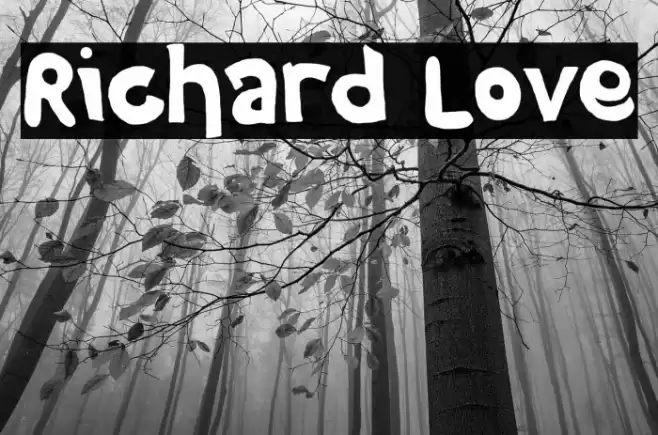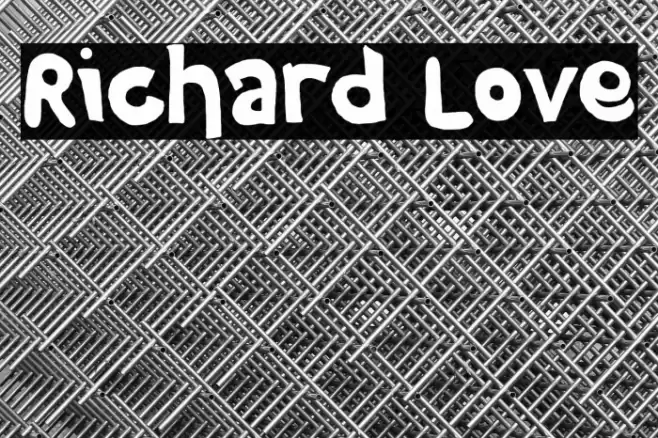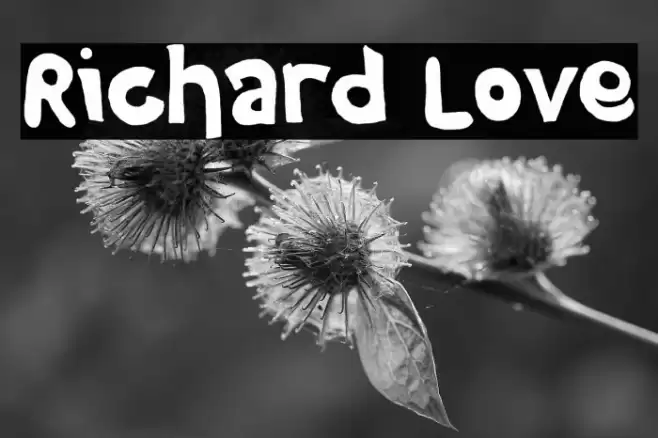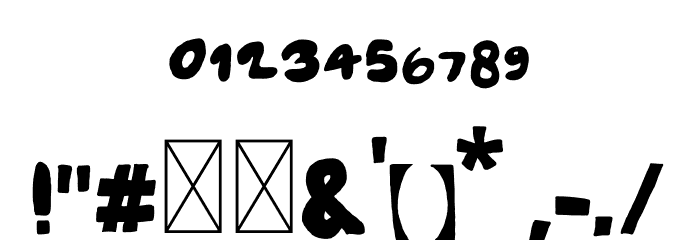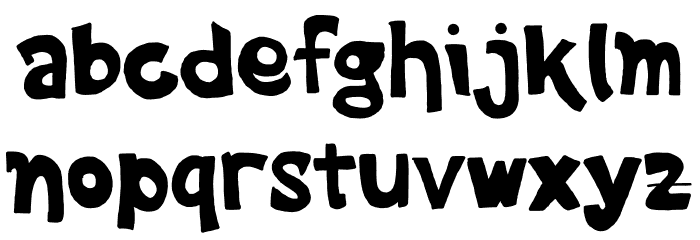
Richard Love Font
Richard Love Description
This playful and bold font features thick, rounded strokes that give it a friendly and approachable appearance. The characters are slightly irregular, adding a hand-drawn, whimsical feel. The uppercase and lowercase letters maintain a consistent style, with a noticeable weight that makes them stand out. The numbers and special characters follow the same design principles, ensuring uniformity across all glyphs. This font's unique style is perfect for projects that require a touch of fun and creativity.
A bold, playful font with rounded, hand-drawn characters from Cartoon fonts.
- Proposed Projects: Ideal for children's books, playful branding, posters, and creative invitations.
- Overall Style: Playful, Whimsical